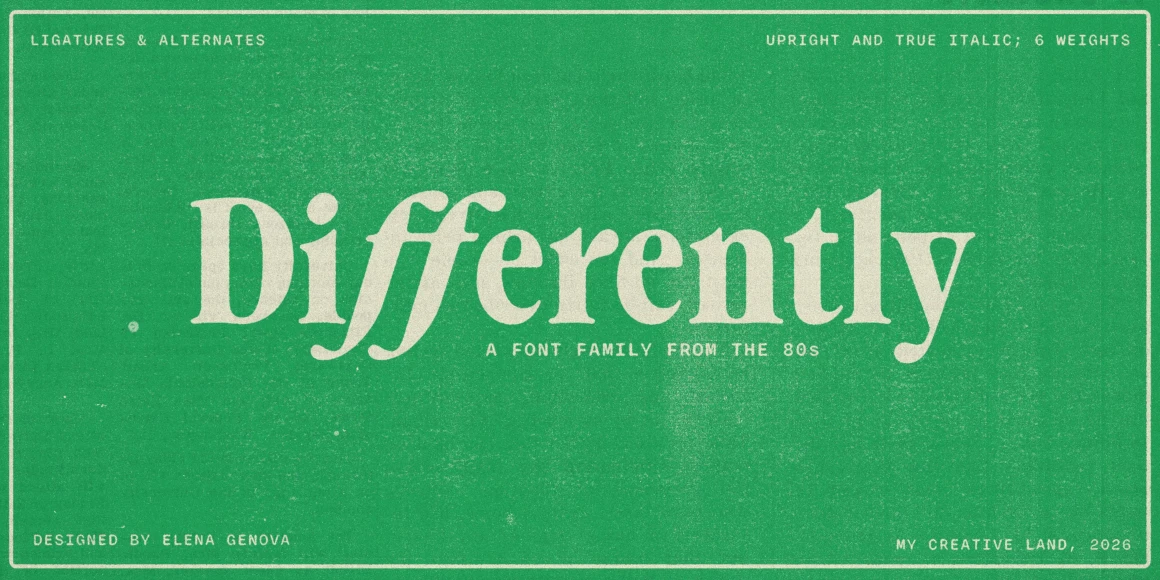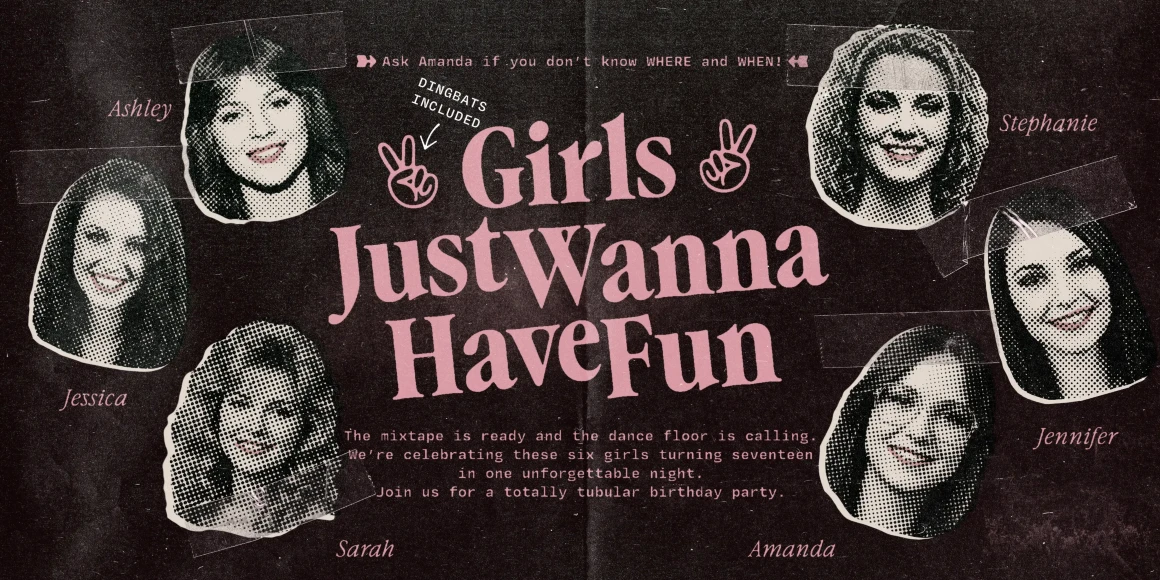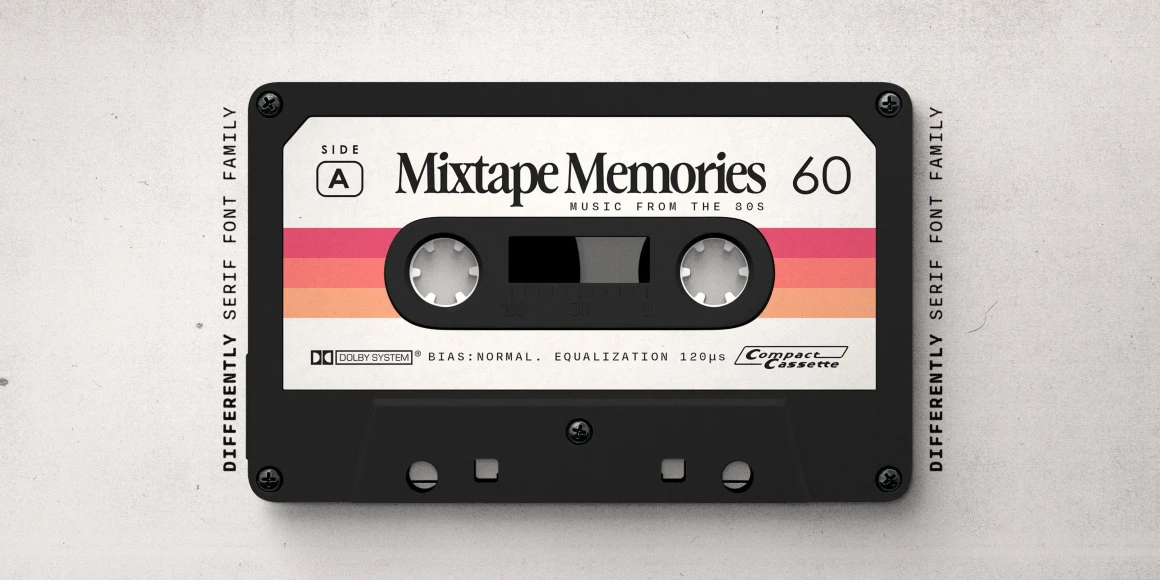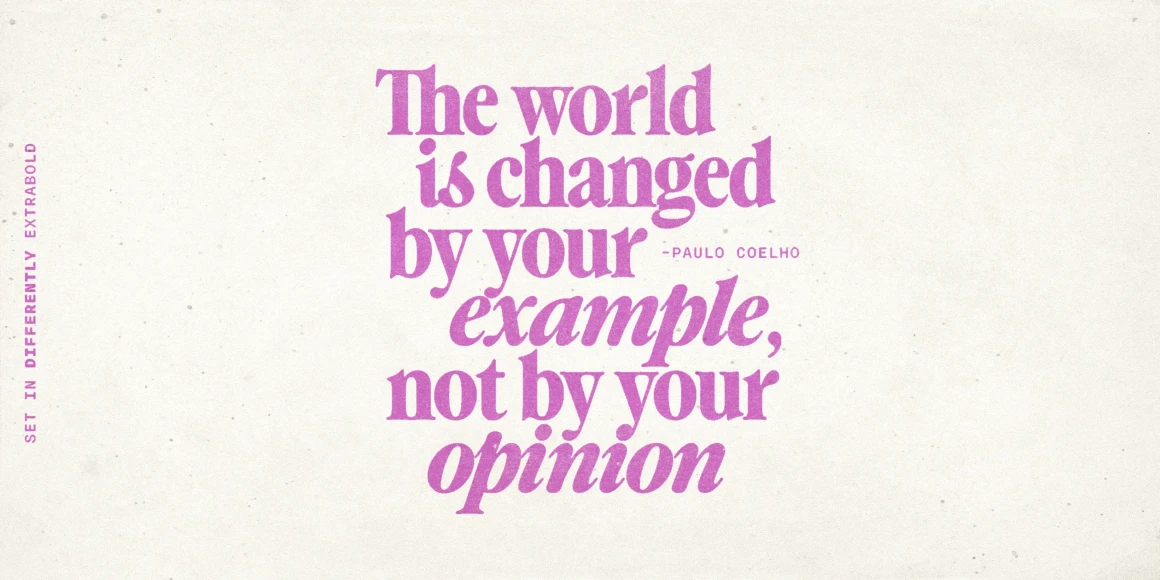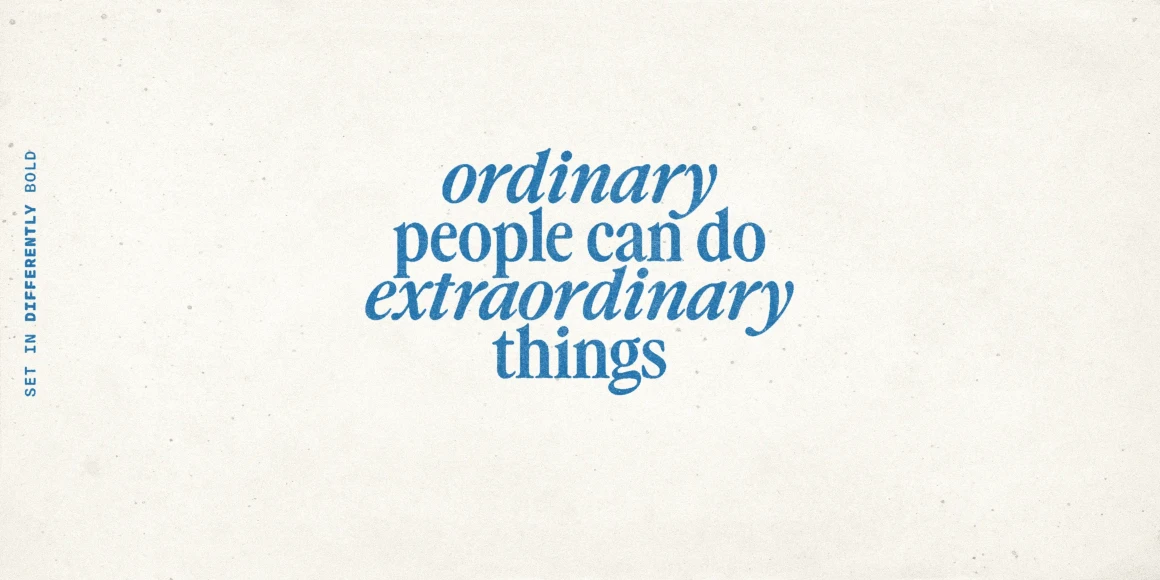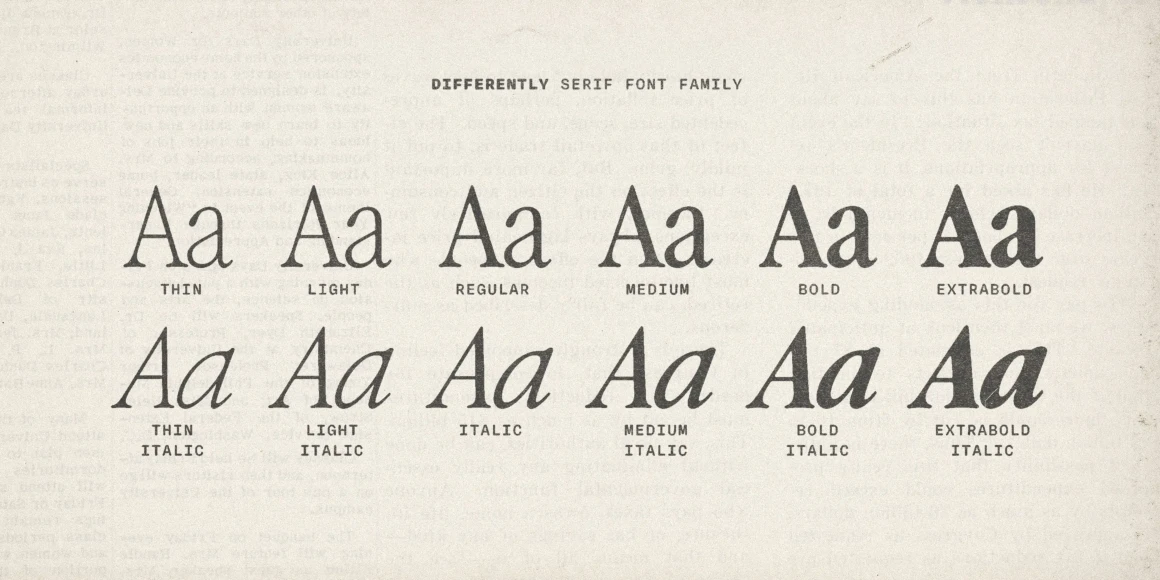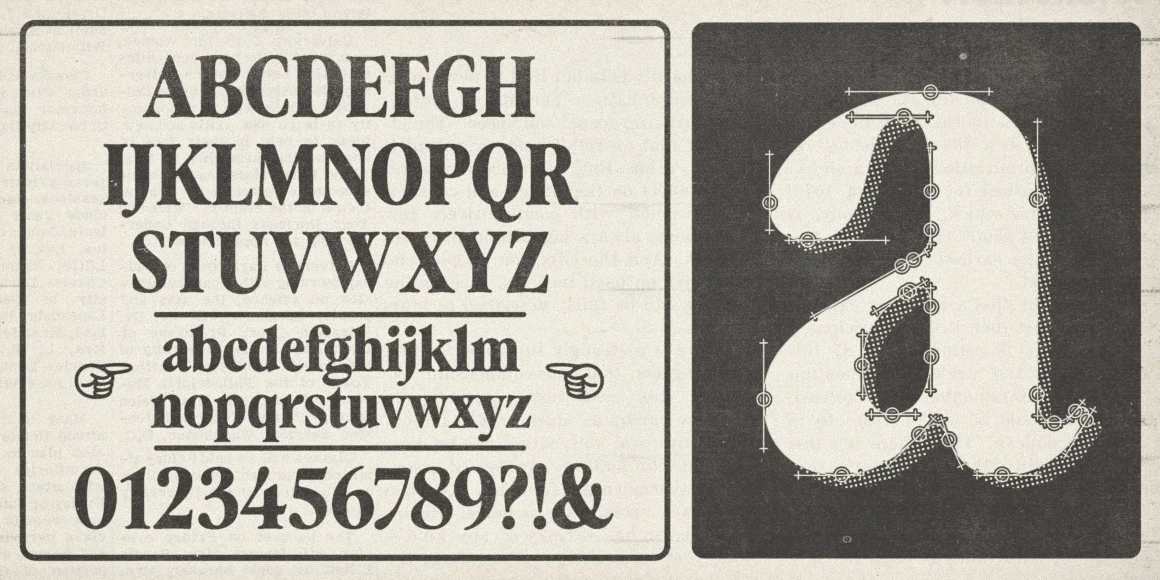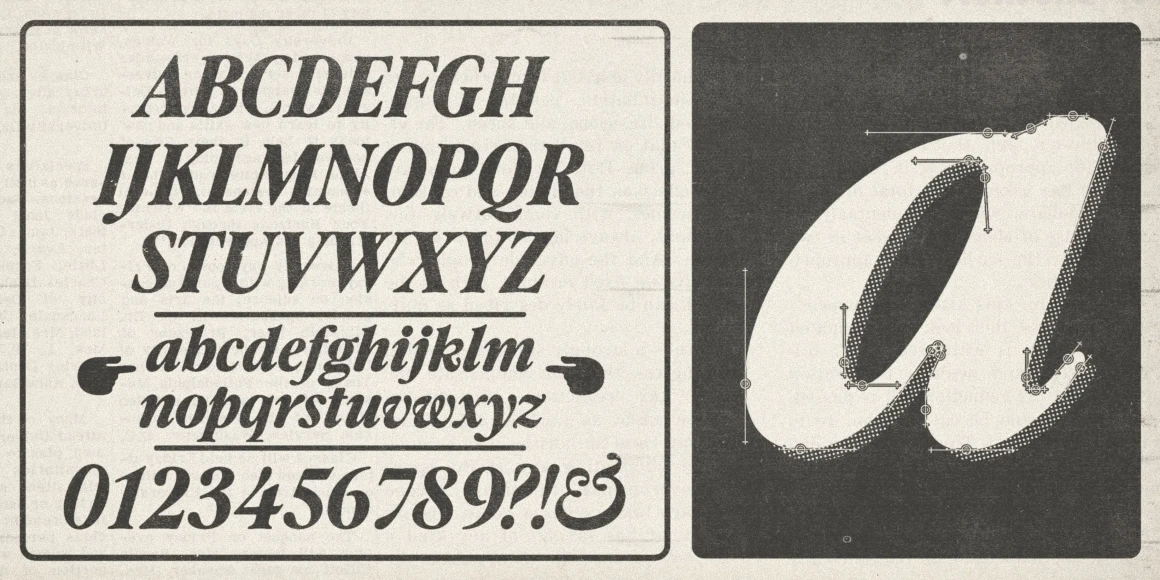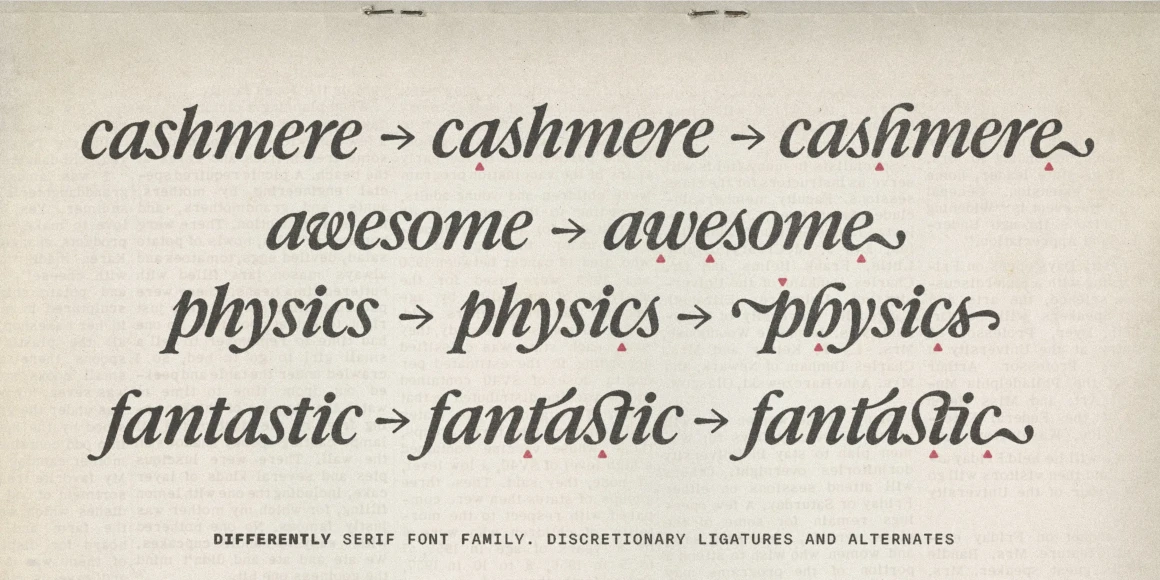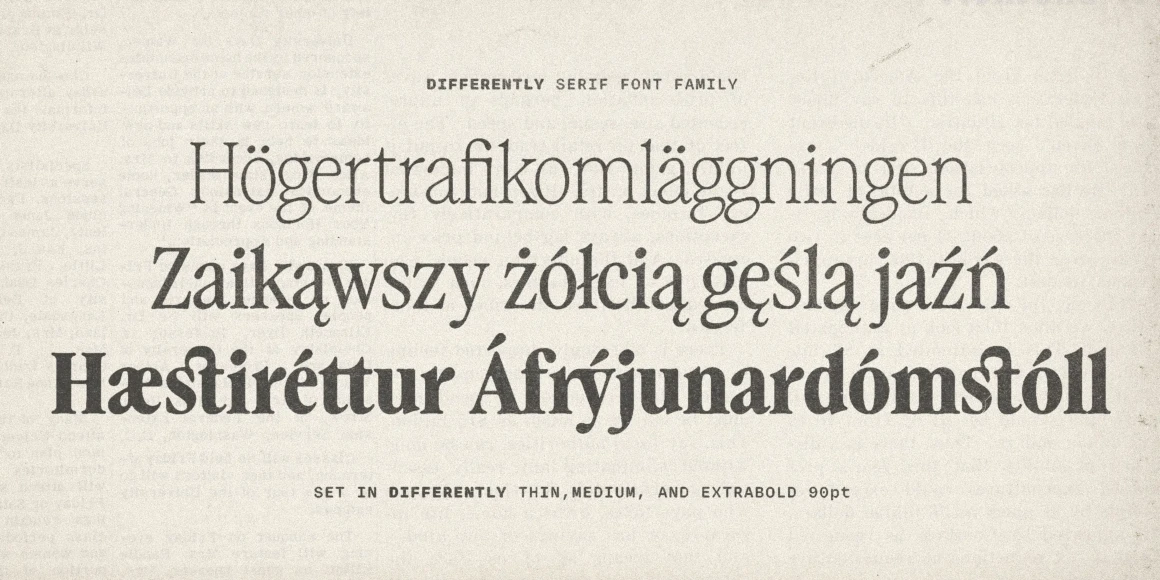
Differently
From My Creative Land
Differently reinterprets the Garamond tradition through the lens of Apple’s iconic print advertising from the 1980s and early ’90s — an era that reminds us how well typography can carry a campaign. Softened forms create a tactile, almost printed feel, echoing the texture and humanity of vintage magazine ads, while ligatures and a true italic add rhythm and expressive character.
Nostalgic without becoming retro, soft without losing precision, expressive without sacrificing clarity. Differently arrives at exactly the right cultural moment — when designers are reaching for warmth and texture to set the mood. Designed for branding, editorial, packaging, and campaigns where your audience will feel it immediately.
Designed by Elena Genova